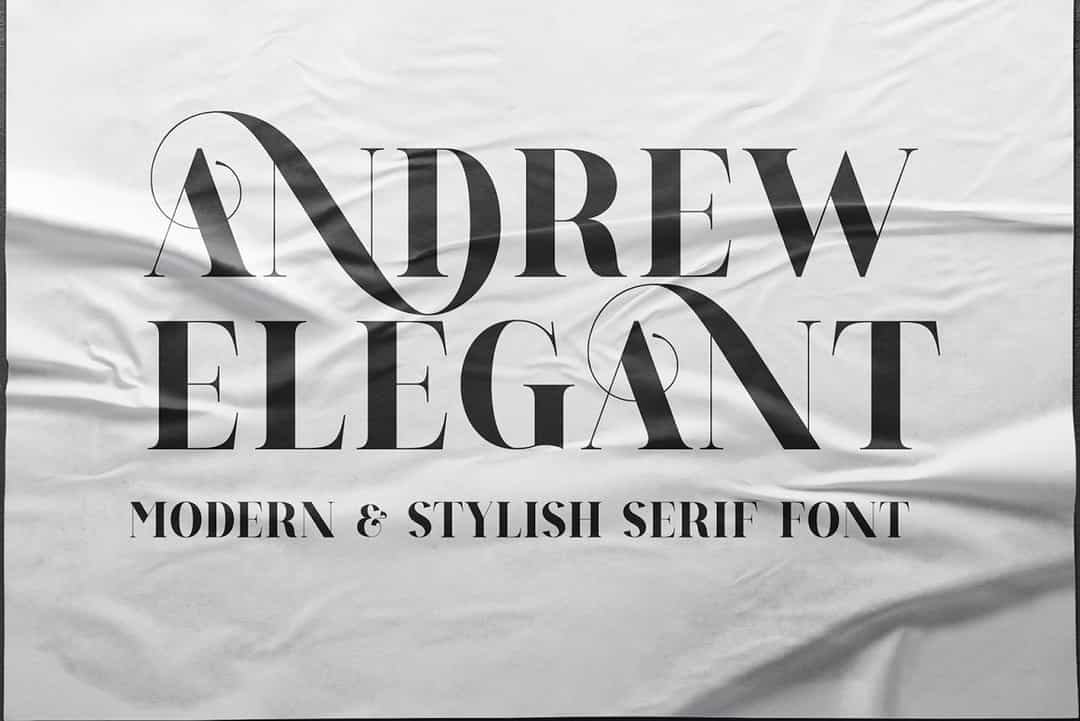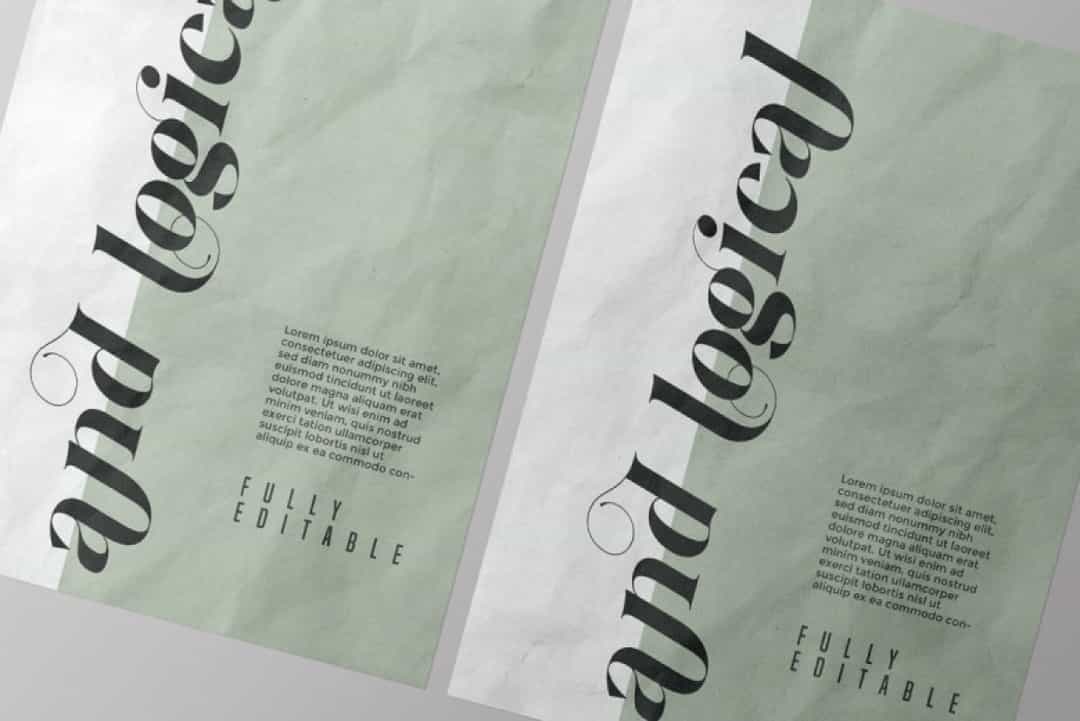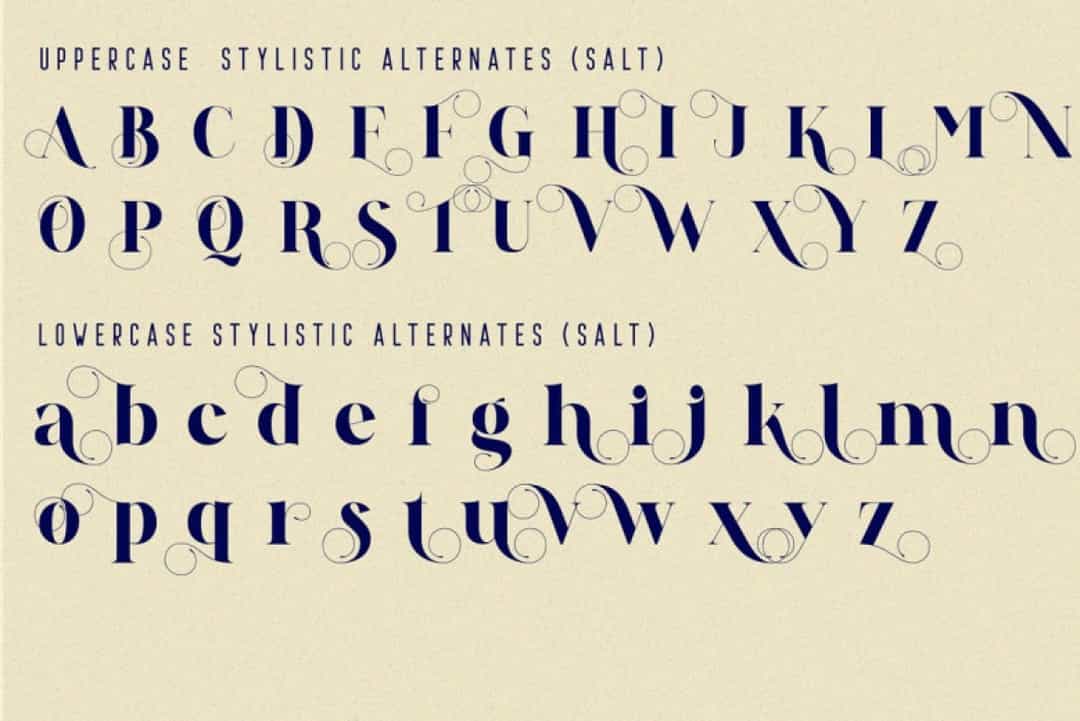
Andrew Elegant Serif Font is a modern classic beauty typeface. A brand new serif ligature font, Andrew offers several alternative fonts to give your designs an element of classical and contemporary style. Recommended for branding, logotypes, monograms for wedding invitations or blog headlines as well as more – see all examples and feel inspired like I did while developing it!